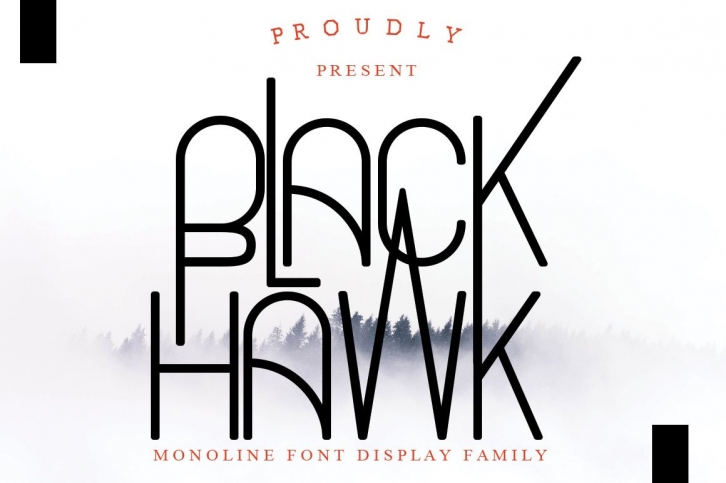
Black Hawk is a trendy and unique font with an authentic style. It was designed by baldam and it's a great choice for creative people who need such a font. It was released on July 6, 2020 and the file size is 1.26 MB. Black Hawk will add an organic vibe to any design idea!